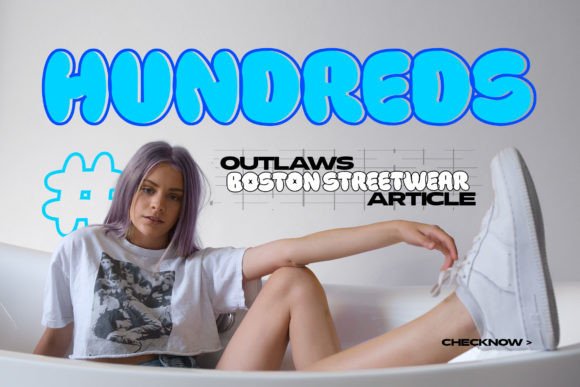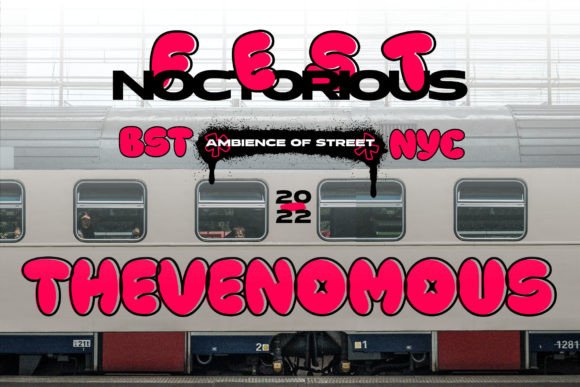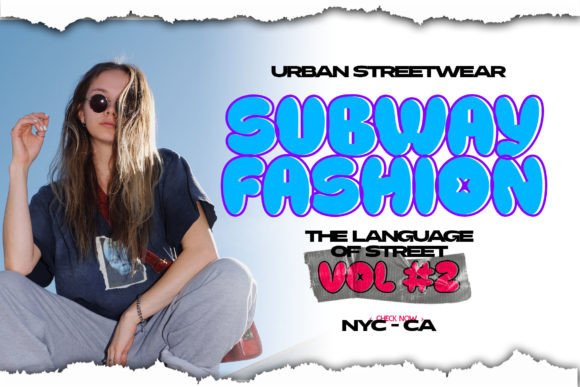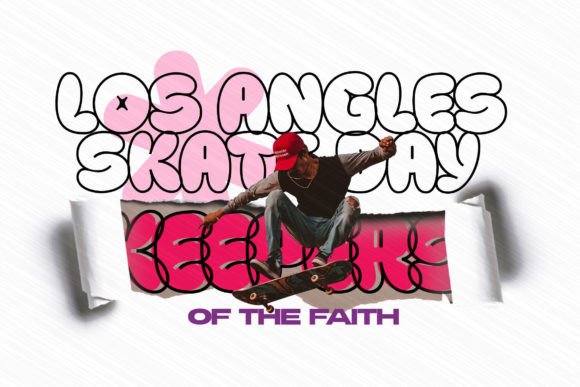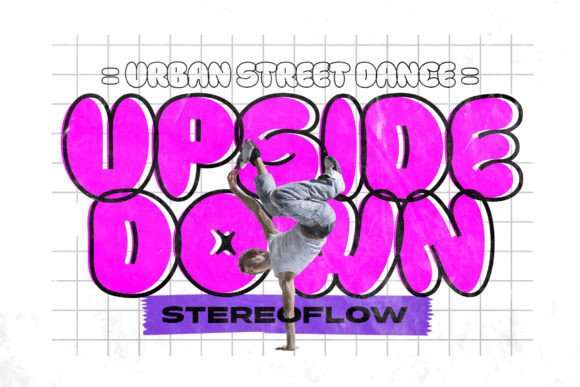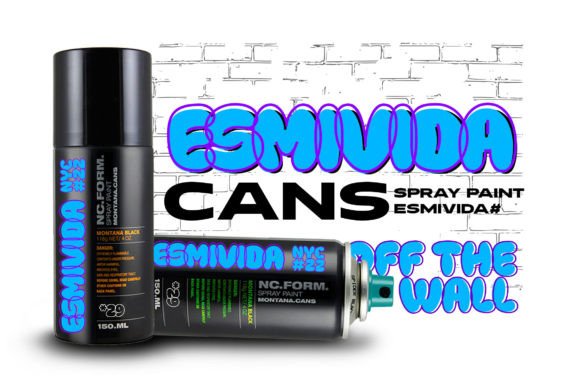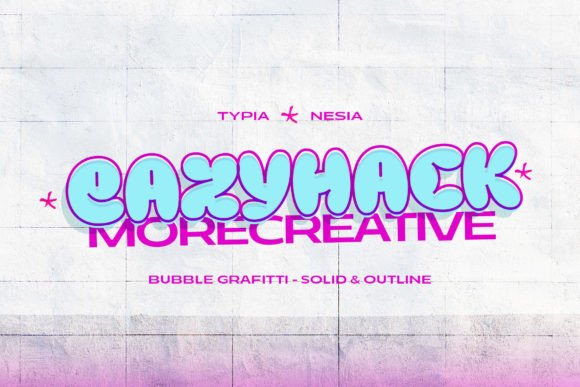
Eazyhack Font: The Modern Balloon Graffiti Font for Your Creative Projects
Are you a designer or crafter looking for a unique and modern font to elevate your creative projects? Look no further than Eazyhack, a fresh and exciting balloon graffiti font that’s perfect for a wide range of applications. In this article, we’ll take a closer look at Eazyhack and explore its features, uses, and benefits.
What is Eazyhack Font?
Eazyhack is a modern balloon graffiti font designed to add a touch of playfulness and creativity to your designs. Its unique and bold style makes it perfect for projects that require a statement piece. With its clean lines, vibrant colors, and edgy feel, Eazyhack is sure to grab attention and leave a lasting impression.
Key Features of Eazyhack Font
- Modern and Fresh Design: Eazyhack boasts a modern and fresh design that’s perfect for contemporary projects.
- Balloon Graffiti Style: Its balloon graffiti style adds a playful and creative touch to your designs.
- Highly Versatile: Eazyhack can be used for a wide range of projects, from logo branding to website design.
- Easily Customizable: The font is easily customizable, allowing you to adjust the colors, sizes, and styles to fit your needs.
Uses of Eazyhack Font
Eazyhack is a highly versatile font that can be used for a variety of projects, including:
- Logo Branding: Create a bold and eye-catching logo for your brand with Eazyhack.
- Editorial Design: Use Eazyhack to add a touch of creativity to your editorial designs, such as magazine covers and article titles.
- Sport Design: Eazyhack is perfect for sports-related designs, such as jerseys, posters, and flyers.
- Game/Gaming Industry: Add a modern and edgy feel to your game designs, such as game titles, logos, and UI elements.
- Music Cover and Poster: Use Eazyhack to create eye-catching music covers and posters that grab attention.
- Website Design: Add a touch of creativity to your website design with Eazyhack, perfect for headings, titles, and UI elements.
- Modern Advertising Design: Use Eazyhack to create bold and eye-catching ads that stand out.
- Modern Poster Quote: Add a touch of inspiration to your poster quotes with Eazyhack.
- Book/Magazine Cover Title: Use Eazyhack to create eye-catching book and magazine cover titles.
- Special Events: Eazyhack is perfect for designing special event materials, such as flyers, posters, and invitations.
Benefits of Using Eazyhack Font
Using Eazyhack font offers several benefits, including:
- Unique and Creative Designs: Eazyhack allows you to create unique and creative designs that stand out from the crowd.
- Time-Saving: With Eazyhack, you can save time and effort in designing your projects from scratch.
- Consistency: Eazyhack ensures consistency in your designs, making your brand or project look cohesive and professional.
- Easy to Use: Eazyhack is easy to use and customize, making it perfect for designers and crafters of all levels.
Eazyhack font is a modern and exciting balloon graffiti font that’s perfect for a wide range of creative projects. Its unique and bold style, versatility, and ease of use make it a must-have for designers and crafters. Whether you’re working on a logo branding project, editorial design, or website design, Eazyhack is sure to elevate your designs and leave a lasting impression.